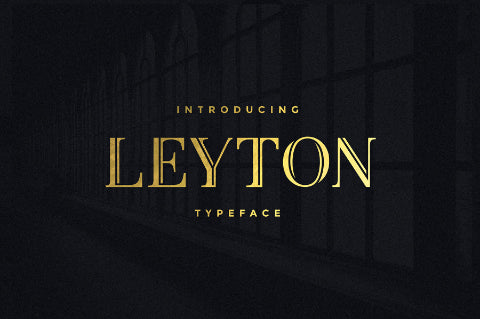
Free Leyton Fancy Typeface
Download and enjoy this free leyton fancy typeface. Cool typeface to showcase your designs in a modern way. Free Design Resources has created this amazing and beautiful free typeface. This is absolutely beautiful font so you can easily make world-class designs.